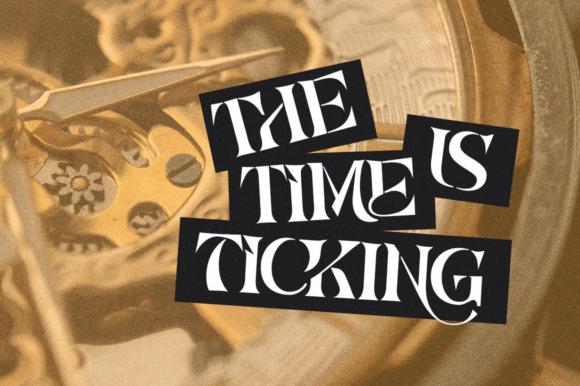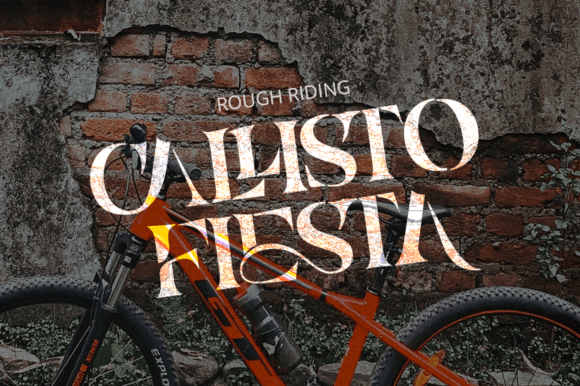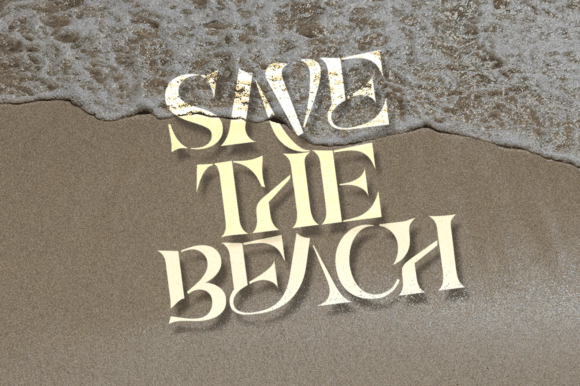
Introduction to Sharky Font
Sharky is one elegant serif font created with care.
You can use it for personal branding, invitations, cards, quotes, flyer font, magazine heading layout, and any other project .
Key Features of Sharky Font
Why Choose Sharky Font?
Sharky Font offers exceptional quality and versatility, making it a valuable addition to your design toolkit. Whether you’re creating for personal projects or commercial use, Sharky Font delivers professional results.